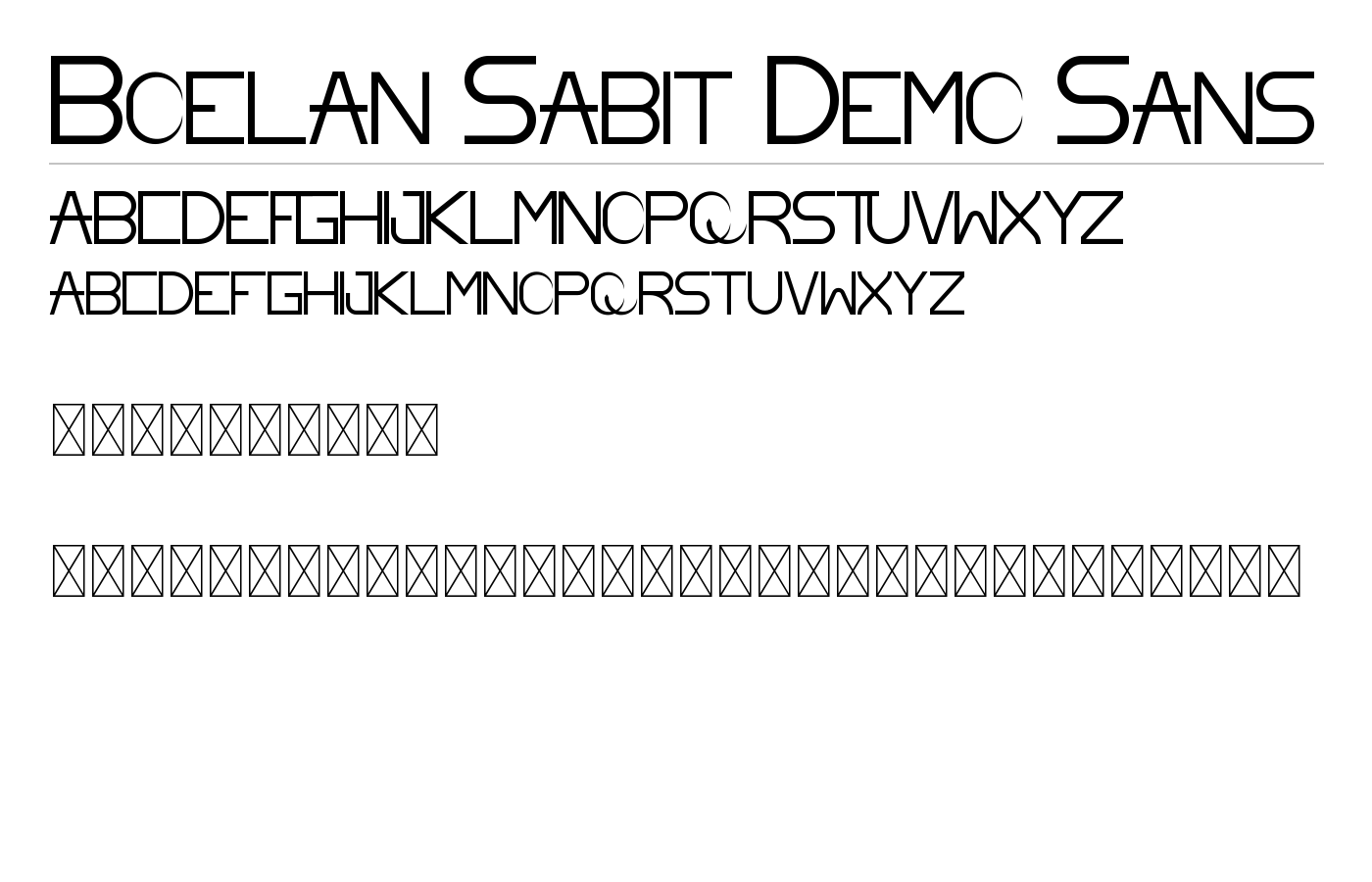
Boelan Sabit Demo is a sleek, modern sans serif font characterized by its thin, evenly weighted strokes and geometric letterforms with a slightly condensed width. Its clean, minimalist style and unique letter details make it ideal for contemporary branding, editorial design, and stylish headlines, imparting a professional yet distinctive feel. This font works best in settings where a refined and futuristic aesthetic is desired, such as tech or fashion-oriented projects.
Boelan Sabit Demo Font
About Boelan Sabit Demo Font